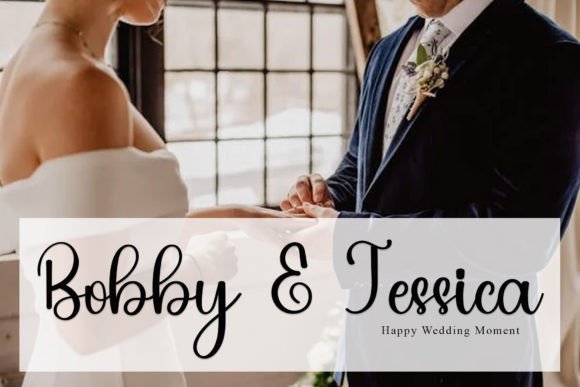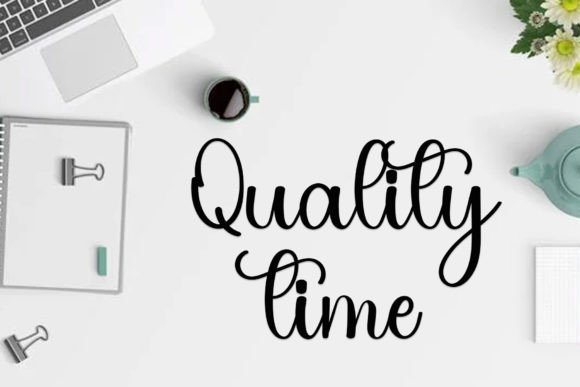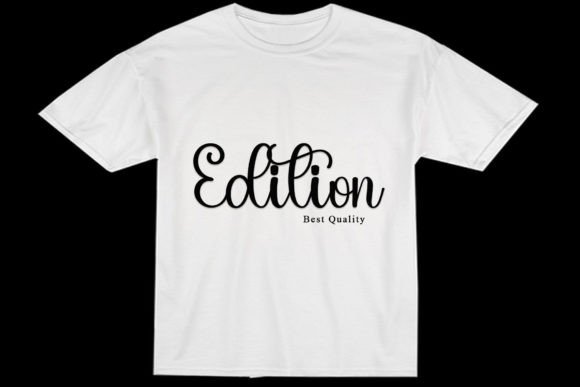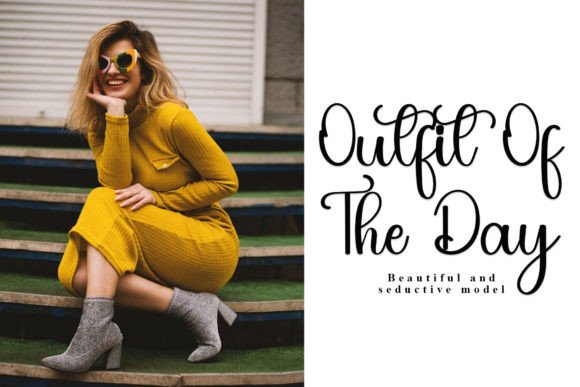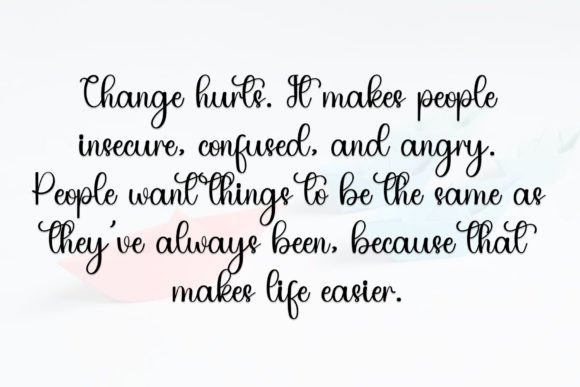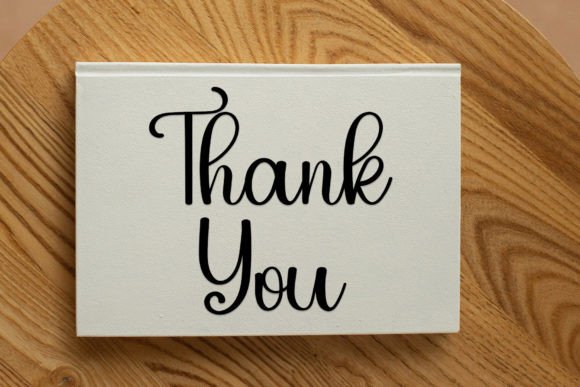
The Bestie Font: Elevate Your Designs with Elegance and Style
I’ll never forget the moment I stumbled upon the Bestie font while working on a wedding invitation project for a dear friend. I had been searching for the perfect handwritten font to give it a personal touch, and Bestie caught my eye. Its elegant and modern style instantly won me over, and I knew I had found the one. In this article, I’ll share my experience with the Bestie font, its features, and how to make the most of it in your designs.
• ✅ Elegant and Modern Style: Bestie boasts a stylish and sophisticated look that’s perfect for designs that require a touch of luxury.
• ✅ Versatile: This font is suitable for a wide range of projects, from wedding invitations and greeting cards to logos and business cards.
• ✅ Easy to Read: Despite its elegant style, Bestie remains highly legible, making it perfect for quotes, sayings, and longer texts.
• ✅ Handwritten Touch: The font’s handwritten feel adds a personal and warm touch to any design.
• ⚠️ Limited Use in Bold: While Bestie looks stunning in regular and italic styles, its bold version might not be as visually appealing. Use it sparingly for emphasis.
• ⚠️ Glyphs and Alternates: To get the most out of Bestie, you’ll need to explore its OpenType features, glyphs, and stylistic alternates. This might require some time to learn, but trust me, it’s worth it.
The Story Behind Bestie Font
The Bestie font was designed with the intention of creating a modern, elegant, and versatile handwritten font. Its creator aimed to craft a font that would be perfect for designs that require a touch of luxury and sophistication. With its clean lines, beautiful letterforms, and extensive OpenType features, Bestie has become a popular choice among designers and crafters.
What makes Bestie font so special? Bestie font boasts a unique blend of elegance, modernity, and versatility, making it perfect for a wide range of designs.
Is Bestie font suitable for body text? While Bestie font is beautiful, it’s best suited for headings, titles, and short texts. For longer body text, you may want to choose a more traditional font.